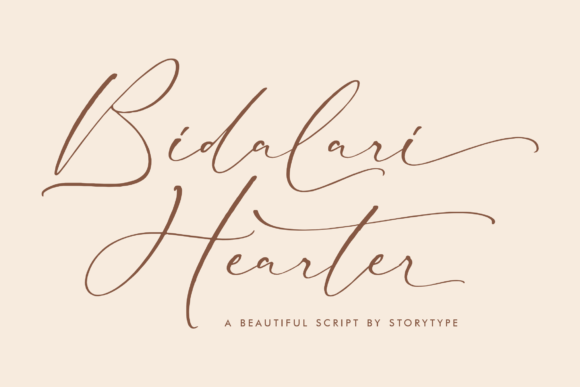
The Bidalari Hearter Font: A Luxurious Script for Creative Projects
Have you ever been in the middle of a design project, and suddenly, you just can’t seem to find the right font? I recall a particularly frustrating experience while working on a luxury brand logo design. My client wanted something elegant, modern, and sophisticated, but everything I tried seemed to fall flat. That’s when I stumbled upon the Bidalari Hearter font, and it completely transformed my design. In this article, I’ll share my experience with this beautiful script font and provide a comprehensive guide on how to make the most of its features.
A Personal Review: What I Love About Bidalari Hearter
Bidalari Hearter is a stunning script font that has won my heart with its unique style and modern look. Here are some aspects that I absolutely love:
- ✨ Elegant and luxurious feel, perfect for high-end designs
- 💫 Beautiful swashes and flourishes that add a touch of sophistication
- 🎨 Versatile and adaptable to various design projects, from logos to magazine titles
While Bidalari Hearter is an exceptional font, there are a few minor quirks to be aware of:
- 🤔 Limited availability of certain characters, which may require some creative workaround
- ⚠️ May not be suitable for body text due to its script nature; best used for headings or titles
- Experiment with OpenType features, such as swashes and stylistic alternates, to add visual interest to your design.
The story behind Bidalari Hearter’s design is one of passion and creativity. The font was crafted by a talented designer who drew inspiration from traditional calligraphy and modern typography. The result is a unique script font that blends elegance with a touch of sophistication.
| Author | Storytype Studio |
| What is Bidalari Hearter best used for? | Bidalari Hearter is perfect for elegant and luxury designs, such as logos, book or movie titles, fashion branding, and magazine designs. |
| Is Bidalari Hearter suitable for body text? | No, Bidalari Hearter is best used for headings or titles due to its script nature; it’s not recommended for body text. |